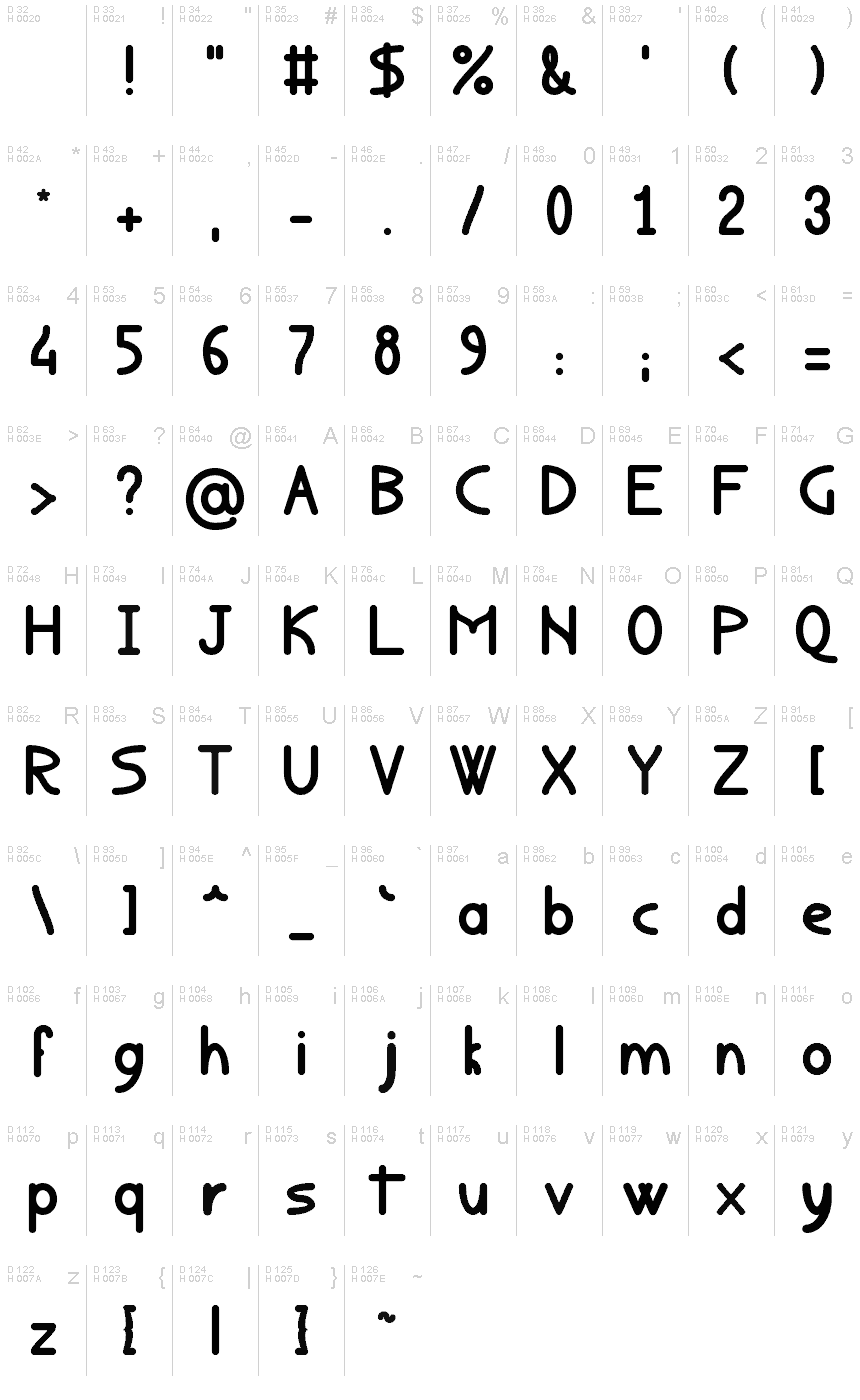
Rondouillard
Rondouillard, crafted by the creative mind of Gael Chretien, is a display font that exudes charm and playfulness. With its comic style, this font leaps off the page to capture the reader's attention through its rounded, bold letterforms that convey a sense of whimsy and fun. The cheerful and approachable aesthetic of Rondouillard makes it an excellent choice for projects aiming to strike a friendly and inviting tone.
The thick strokes and bubbly shape of each character provide a visual comfort, ideal for engaging headlines, captivating posters, or even animated children's book titles. This font's versatility extends to branding materials for family-friendly products or any design space that benefits from a touch of lightheartedness.
Embrace the delightful personality of Rondouillard in your next creative venture where a touch of levity is not only welcomed but essential.
The thick strokes and bubbly shape of each character provide a visual comfort, ideal for engaging headlines, captivating posters, or even animated children's book titles. This font's versatility extends to branding materials for family-friendly products or any design space that benefits from a touch of lightheartedness.
Embrace the delightful personality of Rondouillard in your next creative venture where a touch of levity is not only welcomed but essential.